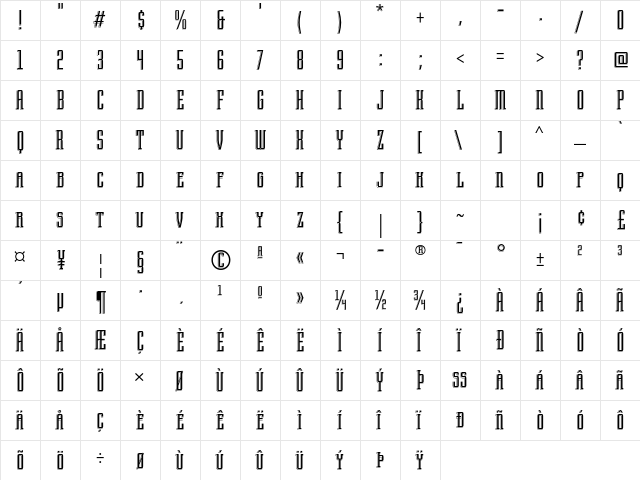
Arecibo ITC Std Regular
| Designer | Luis Siquot |
Design Context for Arecibo ITC Std Typeface
Arecibo ITC Std is a composed and adaptable typeface that performs quietly and consistently across a wide range of design contexts.